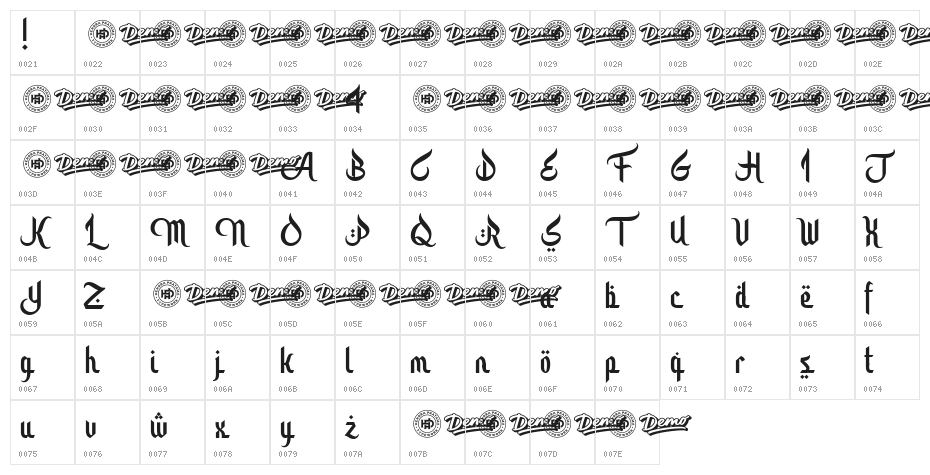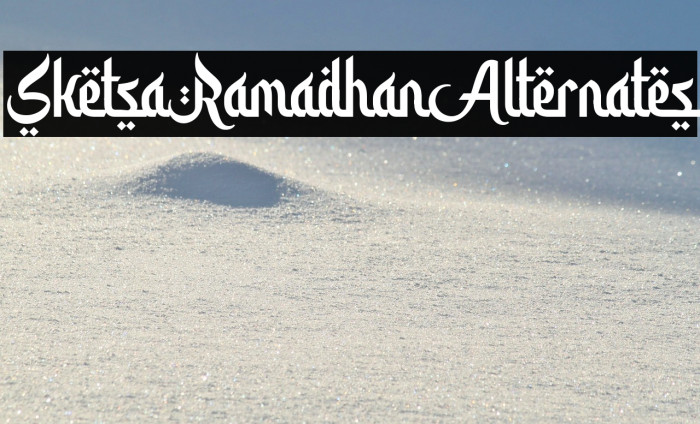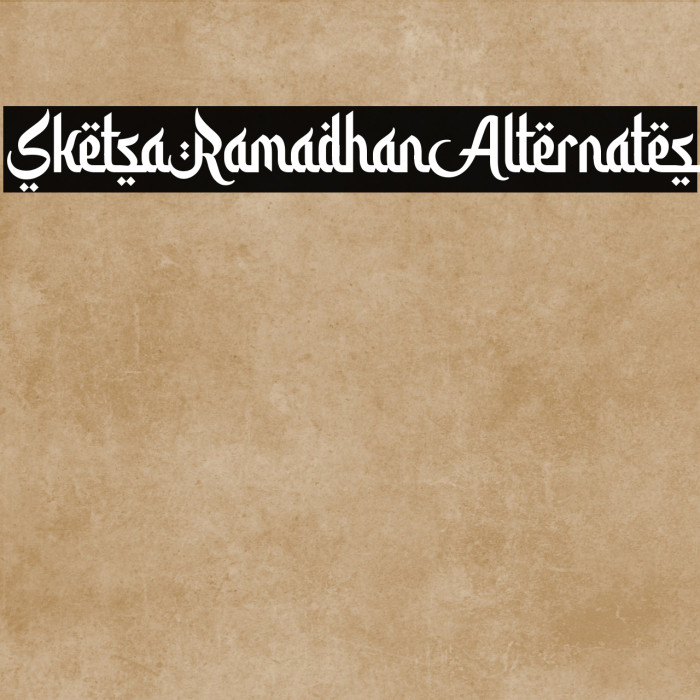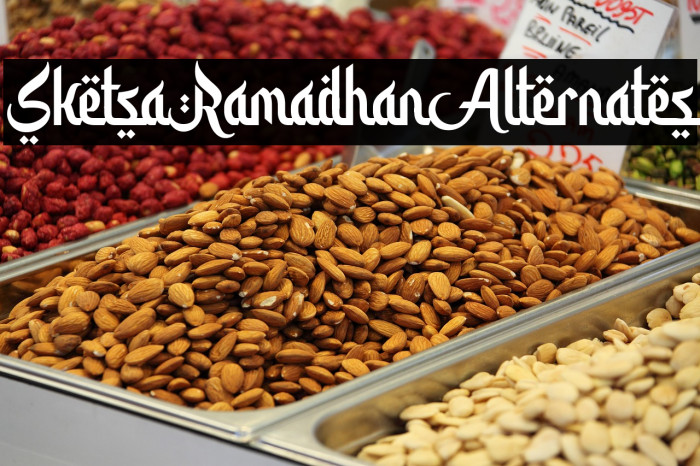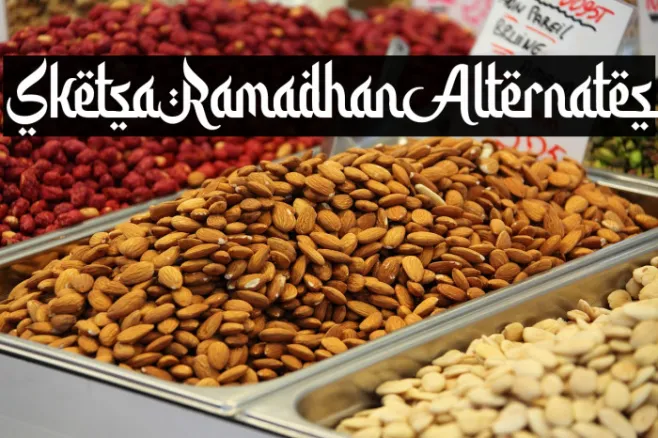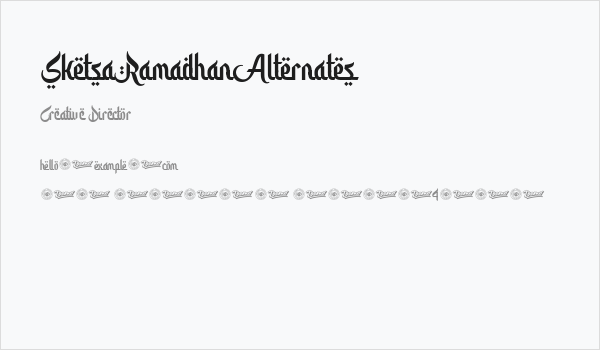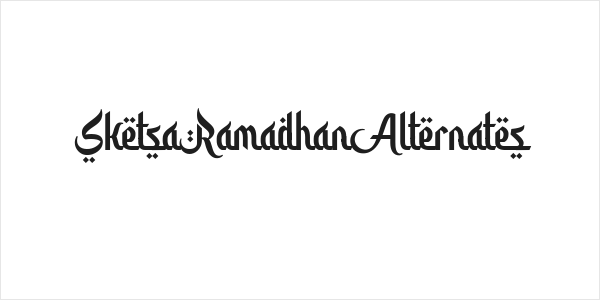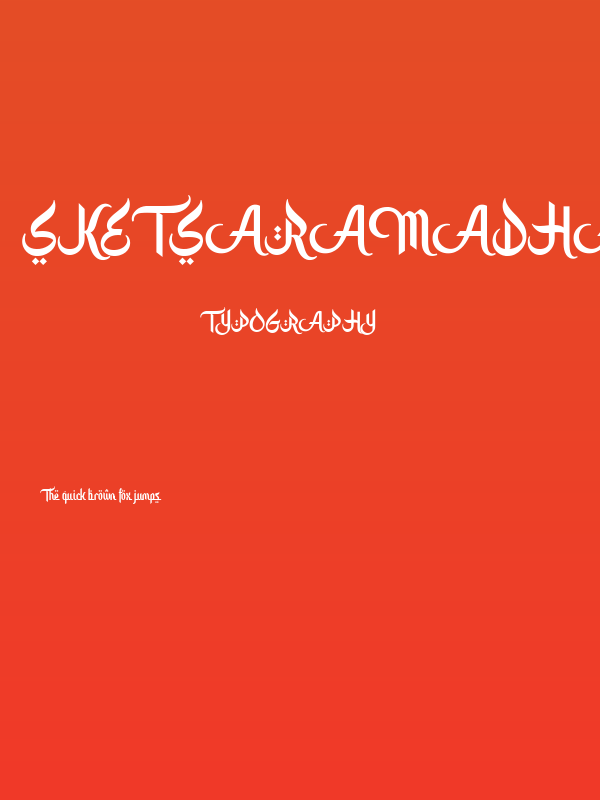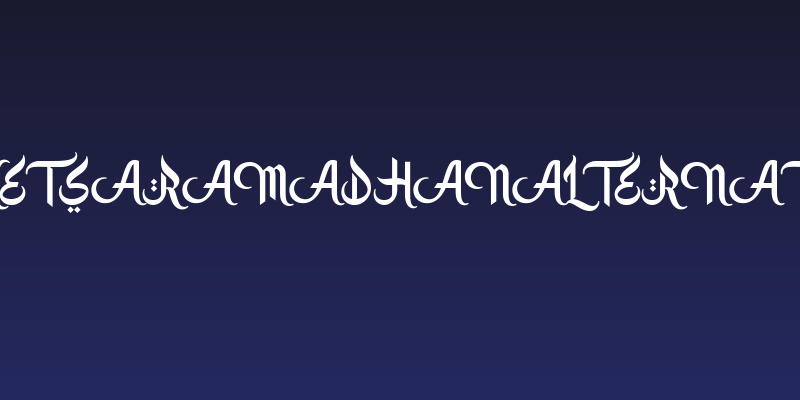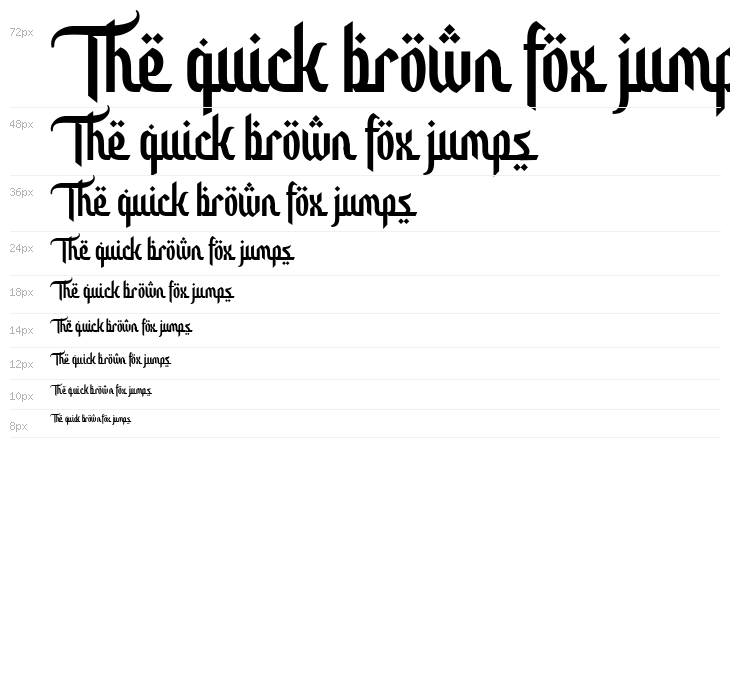
SketsaRamadhanAlternates Font
SketsaRamadhanAlternates Description
This font features a unique blend of traditional and modern elements, characterized by its decorative and intricate letterforms. The uppercase letters have a distinct flair with sharp, angular strokes and ornamental details, reminiscent of calligraphic styles. The lowercase letters maintain a consistent style, with smooth curves and a slightly condensed form. The font includes diacritical marks, adding to its versatility for various languages. The overall appearance is bold and eye-catching, making it suitable for display purposes. The special characters are designed to complement the alphabet, maintaining the same decorative style.